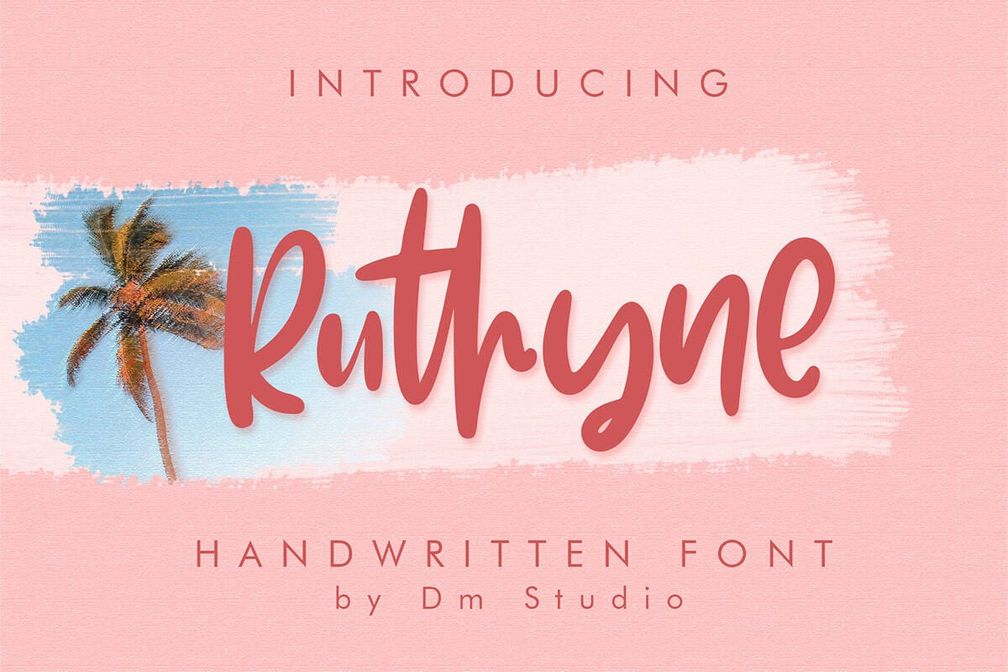
Ruthyne – Handwritten Font
The Ruthyne Handwritten Font is a graceful and versatile typeface that captures the essence of natural handwriting. With its fluid strokes and organic letterforms, this font adds a touch of elegance and authenticity to your designs, making it perfect for personal projects, branding, invitations, and more.
1. Elegant and Organic Style: The Ruthyne Font exudes an elegant and refined aesthetic. Its flowing letterforms and natural strokes create a sense of authenticity and sophistication, making it ideal for projects that require a personal and elegant touch.
2. Natural Handwriting Design: The font emulates the authenticity of handwritten text, adding a personal and humanistic feel to your designs. It captures the nuances and imperfections of natural handwriting, creating a warm and welcoming atmosphere.
3. Versatile Application: This font is versatile and well-suited for various design projects that aim to evoke a sense of authenticity and elegance. Use it in personal notes, branding materials, wedding invitations, social media graphics, and more to add a touch of natural beauty to your designs.
4. Uppercase and Lowercase Letters: The font includes both uppercase and lowercase letters, providing flexibility and creative freedom in your designs. Mix and match the cases to create visually appealing and balanced typography.
5. Ligatures and Stylistic Alternates: The Ruthyne Font offers a selection of ligatures and stylistic alternates that enhance the visual interest of your text. These special characters create unique connections between letters and alternate forms, allowing you to create personalized and captivating typography.
6. Punctuation and Symbols: In addition to the alphabet, the Ruthyne Font includes a comprehensive set of punctuation marks, numerals, and common symbols. This ensures consistency and ease of use when incorporating the font into your design projects.
Elevate your designs with the elegance and authenticity of the Ruthyne Handwritten Font. Let its fluid strokes and natural letterforms add a touch of grace and sophistication to your personal notes, branding materials, and invitations. Embrace the beauty of natural handwriting and create designs that connect with your audience on a personal level.